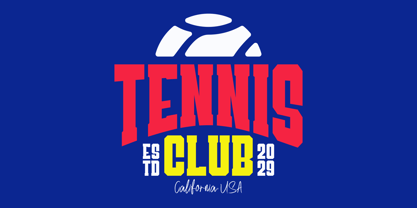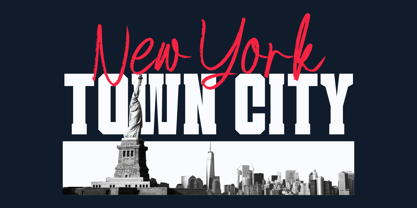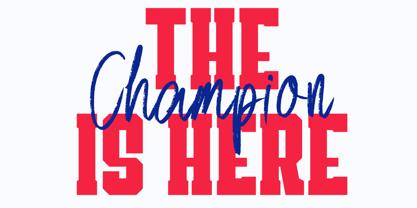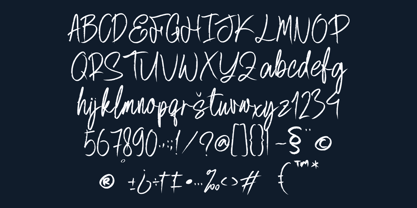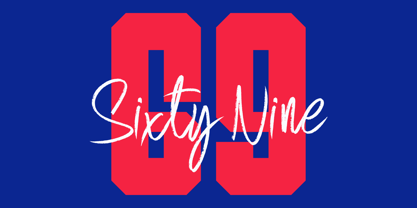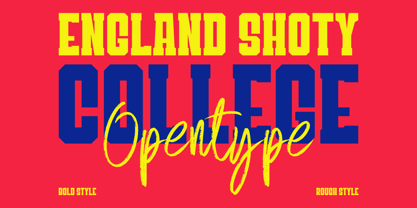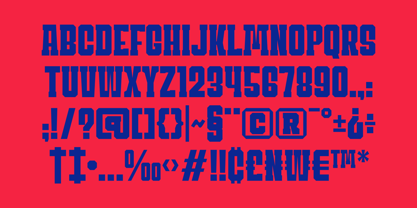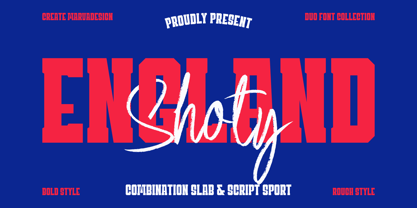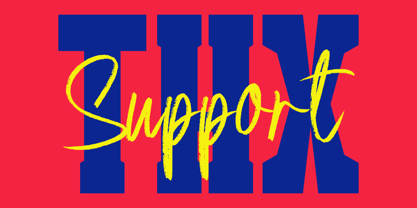
England Shoty
The England Shoty Font Family was designed by Febrie Setiawan and published by Marvadesign. England Shoty contains 2 styles and family package options.
Introducing Duo Sport Font
England Shoty is a bold and dynamic duo of fonts called England Shoty, designed to blend athletic energy with expressive flair. The font features two distinct typefaces: a Slab Serif Sport Style font characterized by strong, blocky, geometric letterforms ideal for sports branding and collegiate themes and a Rough Brush Script font that adds a sense of movement and personality through hand-drawn, textured strokes. This combination creates a striking visual identity that balances strength and elegance, making it perfect for athletic logos, team merchandise, and promotional materials. This font set exudes the confidence and aesthetic of old-school American sports, with a color palette and typographic layouts that emphasize its bold, competitive spirit.